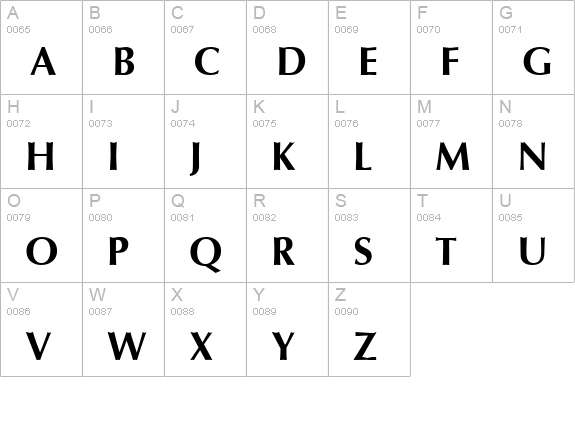
TR Oregon Bold Font Details
TR Oregon Bold is a strong, high-contrast variant in the TR typeface family \xE2\x80\x94 well suited to headlines, attention-grabbing titles, and strong calls-to-action.
TR Oregon Bold is a striking and versatile typeface that exudes confidence and modernity. With its bold and sturdy appearance, this font is perfect for creating eye-catching headlines, titles, and logos. The clean lines and strong presence of TR Oregon Bold make it ideal for both print and digital designs, adding a touch of sophistication to any project. What sets TR Oregon Bold apart is not just its bold aesthetic, but also its versatility. Whether you're designing a poster, website, or branding materials, this font will make a bold statement that commands attention. The sharp edges and well-defined characters of TR Oregon Bold ensure that your text stands out and leaves a lasting impression on your audience. The best part? TR Oregon Bold is available for free download at FontsMarket.com. This means that you can easily access this stunning font and use it in your projects without any cost. Don't miss out on the opportunity to enhance your designs with the bold and impactful TR Oregon Bold font. Download it today and take your typography to the next level.